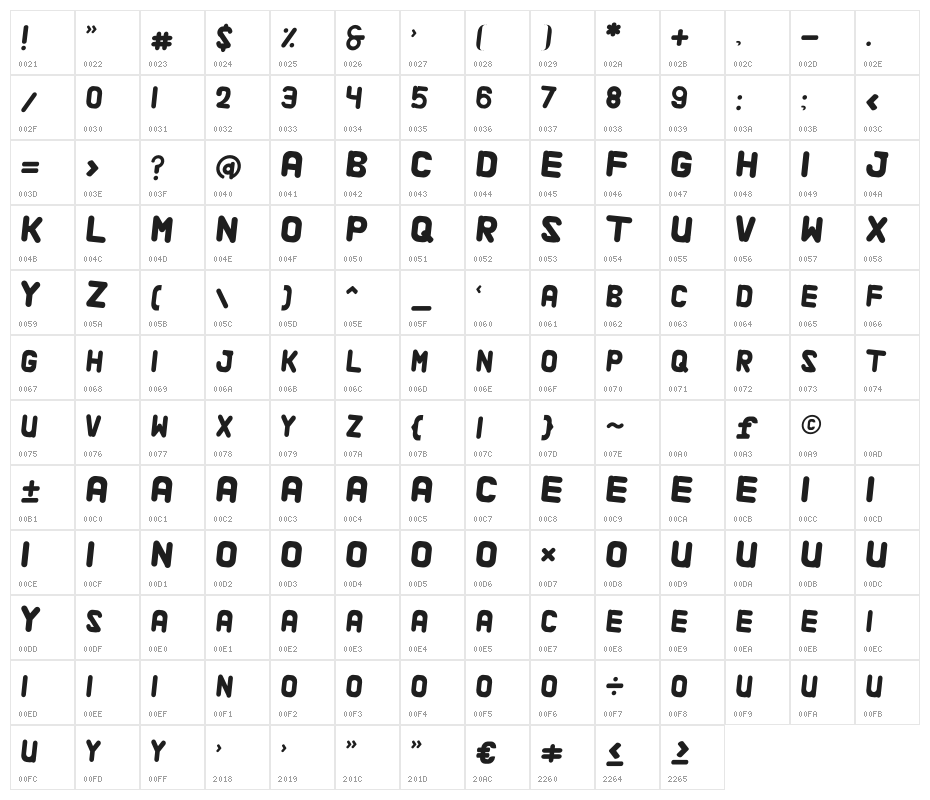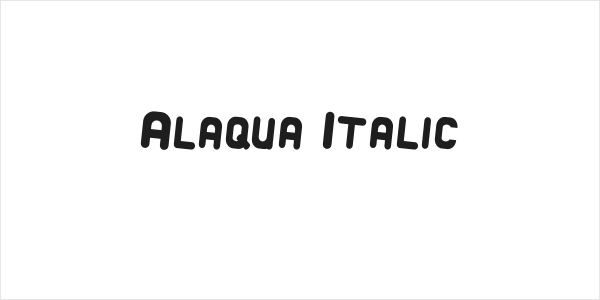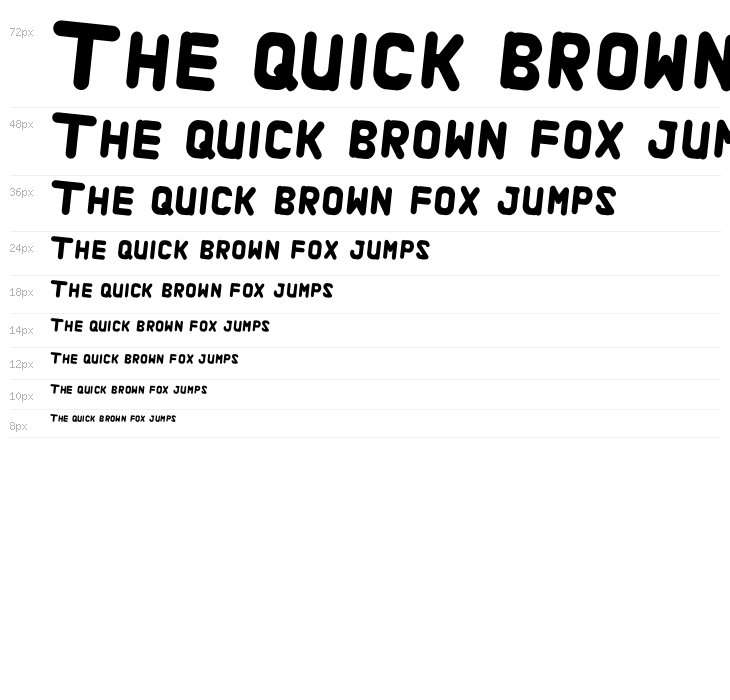
Alaqua Italic Font
Alaqua Italic Description
This font features a playful and rounded style with a slight italic slant, giving it a dynamic and friendly appearance. The characters are bold and have a consistent thickness throughout, contributing to a cohesive look. The rounded edges and smooth curves create an approachable and informal feel, making it suitable for casual and creative projects. The numbers and special characters maintain the same playful aesthetic, ensuring uniformity across all elements. The font's design is modern and stands out with its unique character shapes, which are slightly condensed, allowing for efficient use of space.
| Proposed Projects | Ideal for children's books, playful branding, casual invitations, and creative posters. |